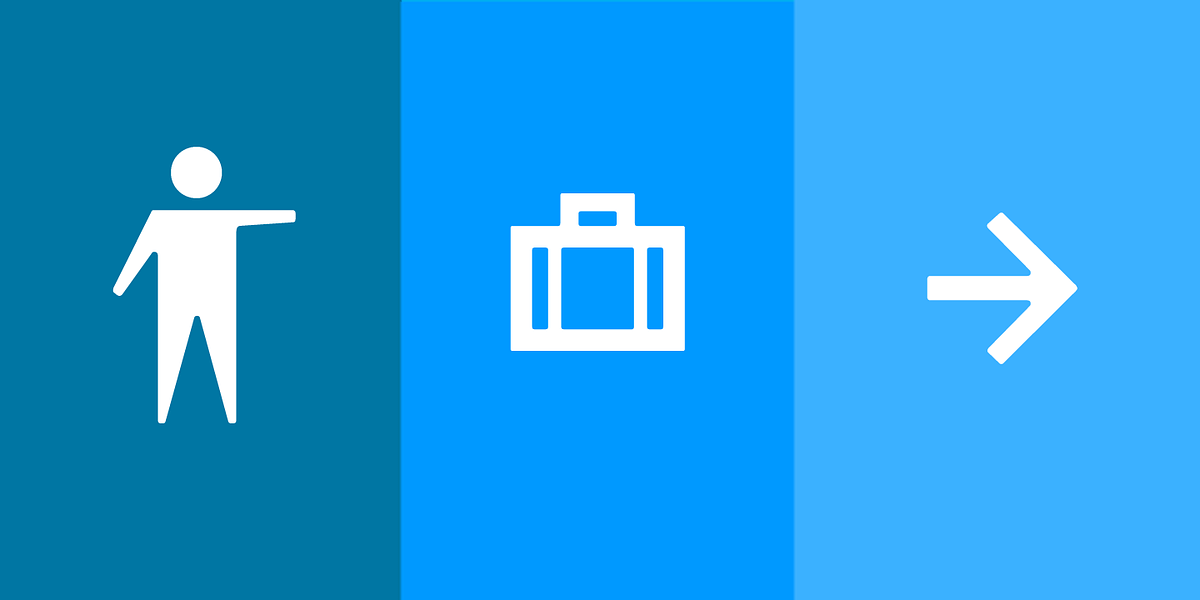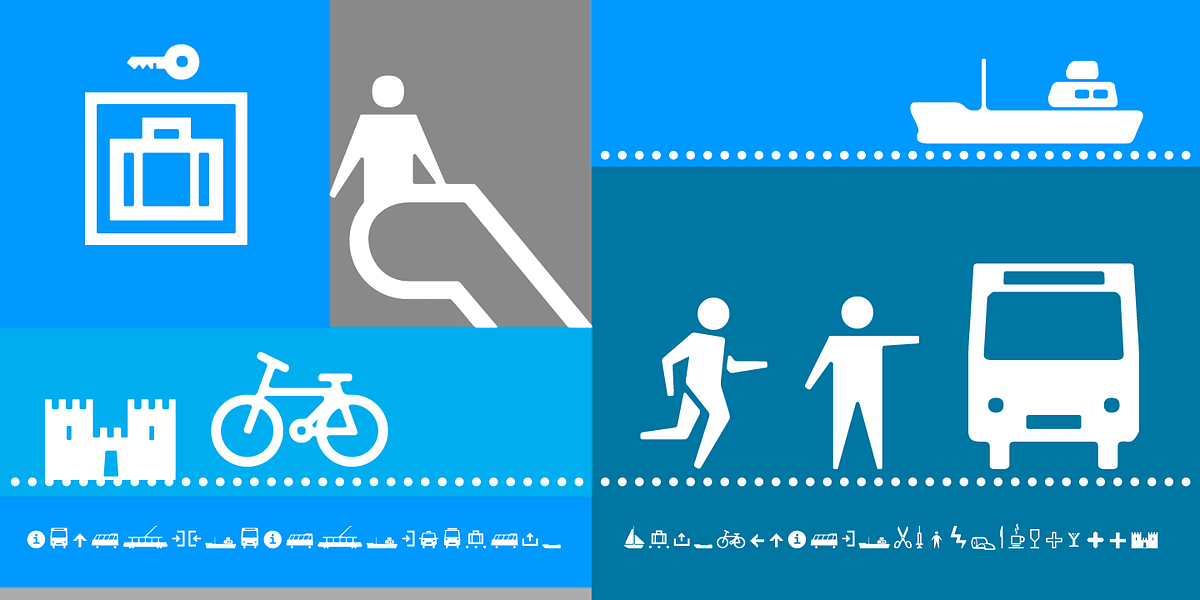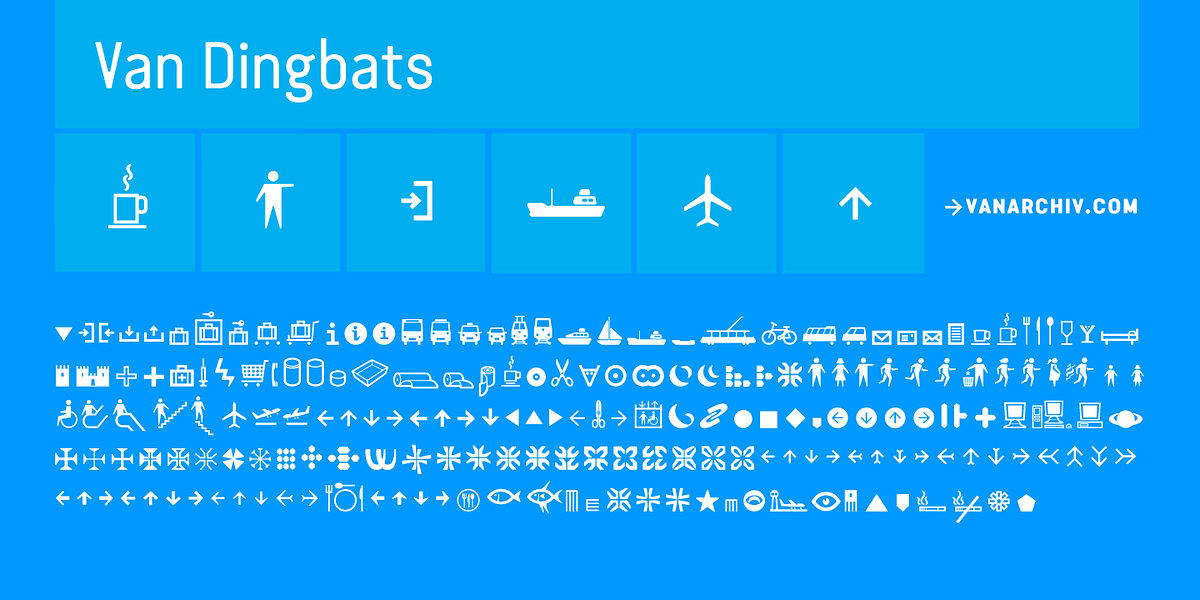
Van Dingbats
This dingbat font features icons with a rounded treatment, designed to harmonize aesthetically with the Van Condensed typeface family. It's ideal for incorporating visual elements into designs.